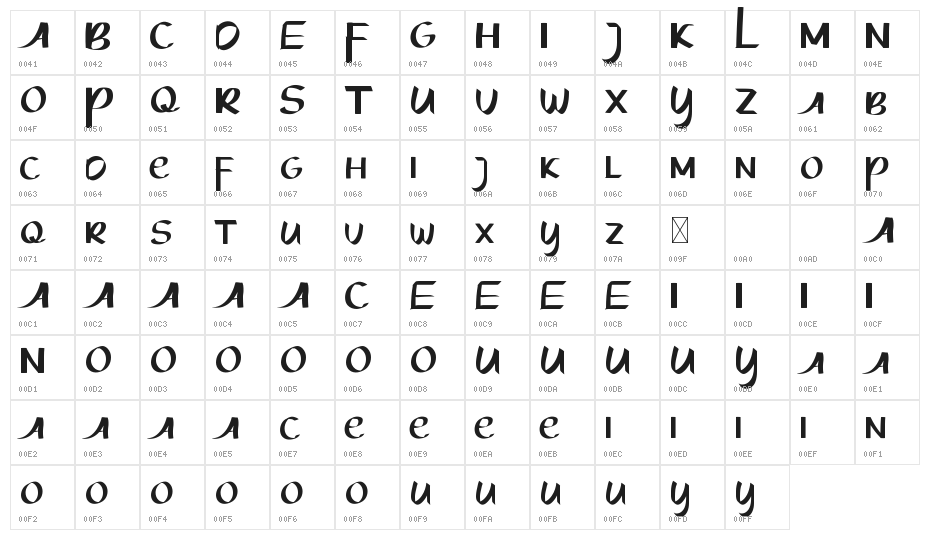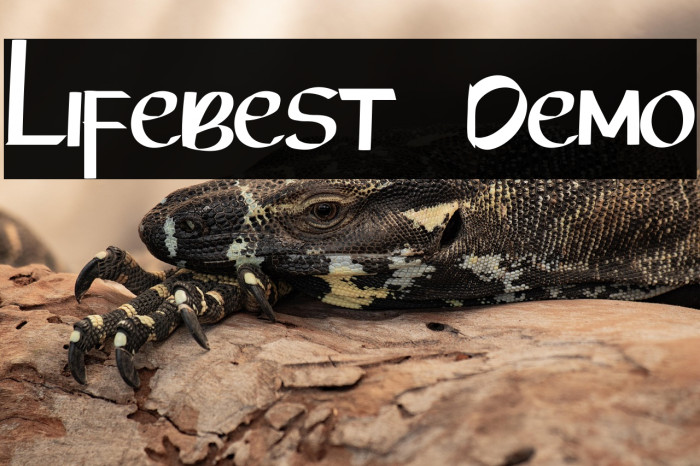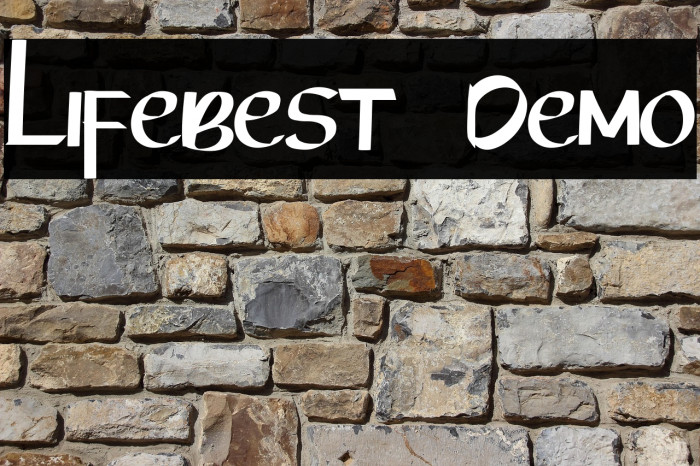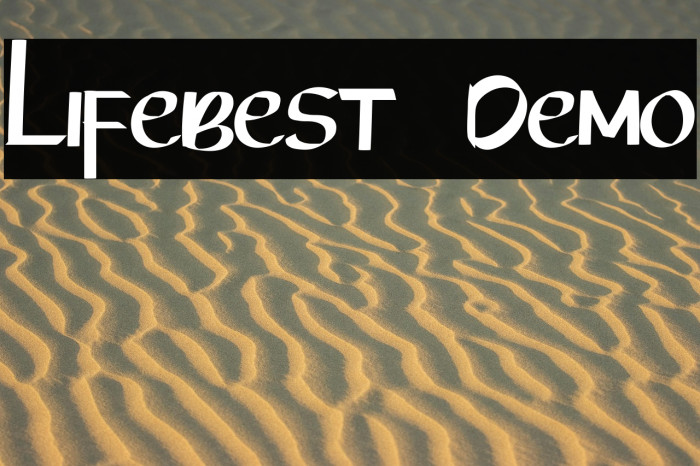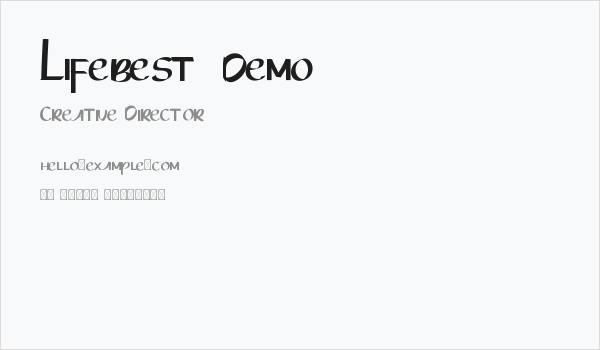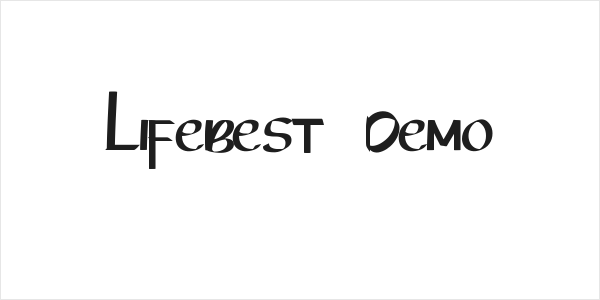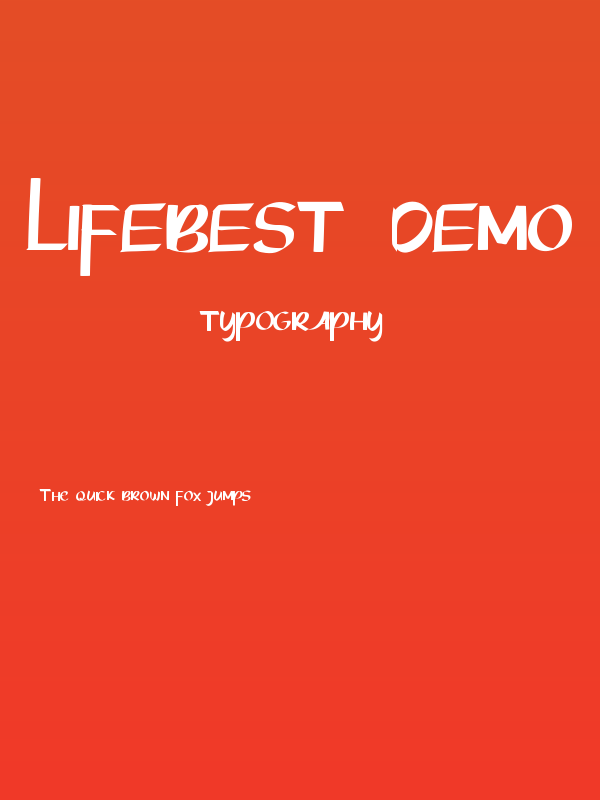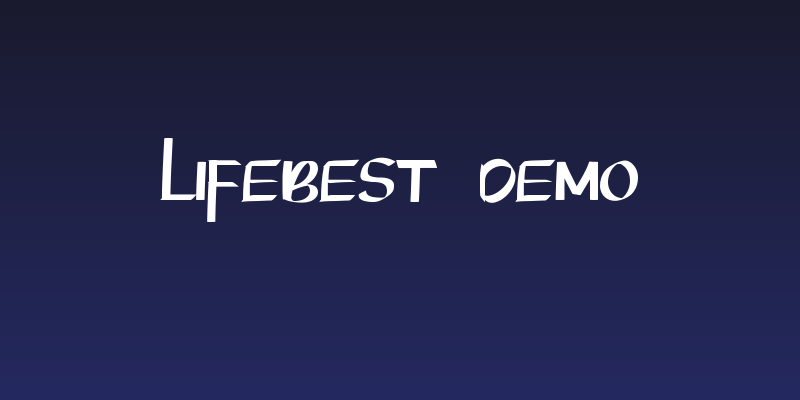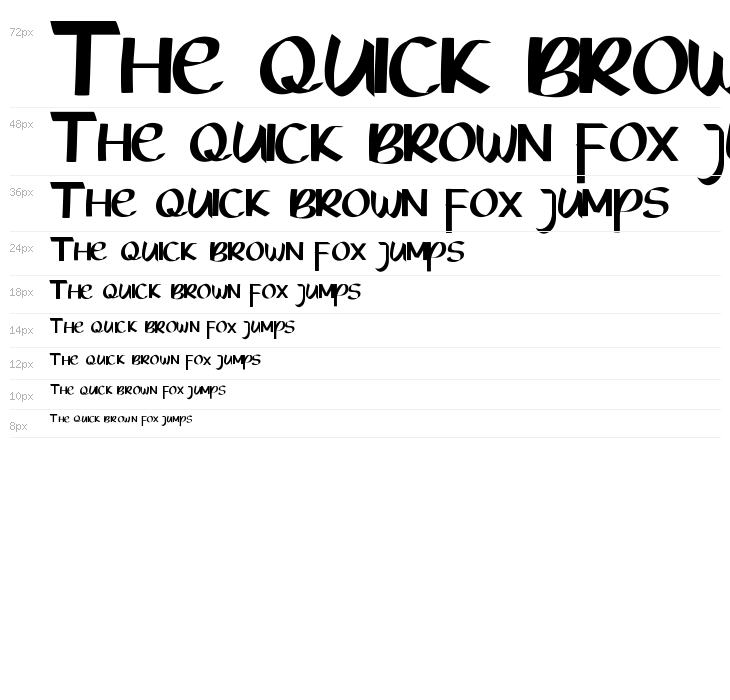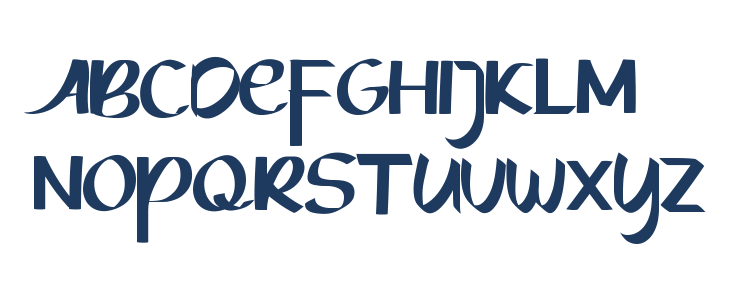
Lifebest Demo Font
Lifebest Demo Description
This font exhibits a dynamic and energetic style, characterized by its bold and flowing script. The letters are crafted with a sense of movement, featuring sweeping curves and sharp angles that create a lively and engaging appearance. The uppercase letters are particularly striking, with exaggerated flourishes that add a sense of drama and flair. The lowercase letters maintain a consistent style, complementing the uppercase with their own unique twists and turns. The overall design is both modern and artistic, making it suitable for projects that require a touch of creativity and expressiveness.
| Proposed Projects | Ideal for branding, logo design, posters, and creative advertising campaigns. |